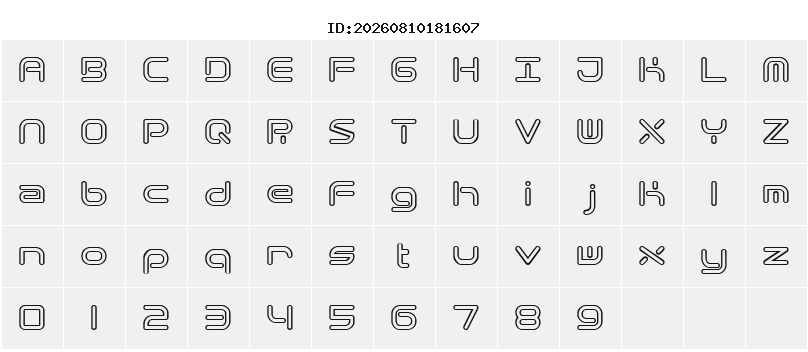
Quantum Round Hollow (BRK) Preview
• Font Name: Quantum Round Hollow (BRK)
• Full Font Name: Quantum Round Hollow (BRK)
About Quantum Round Hollow (BRK).ttf
Quantum Round Hollow (BRK).ttf is a modern, elegant sans-serif font designed for ultimate readability and visual harmony. Perfect for branding, headlines, web design, and print materials.